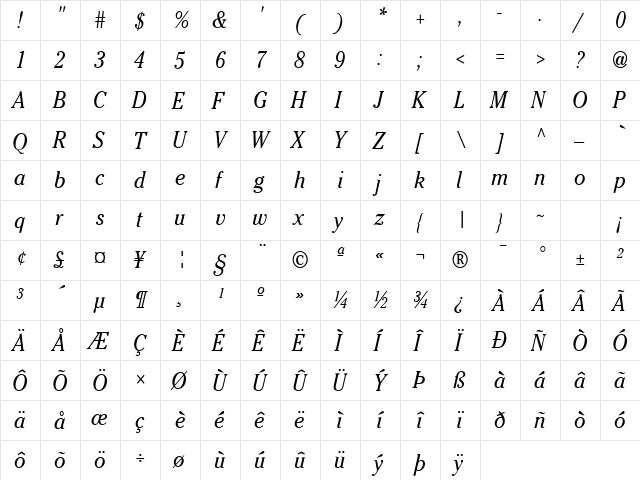
PP-Cheltenham Cnd Normal-Italic
Design Context for PP-Cheltenham Cnd Typeface
PP-Cheltenham Cnd takes a measured approach to typography — its balanced proportions and neutral character make it a reliable workhorse for both digital and print work. The dynamic lean of this cut emphasises speed and emphasis in any layout.
Pro Tip: Try PP-Cheltenham Cnd for annotation and caption copy alongside an upright companion — the contrast in angle creates a dynamic but ordered typographic system.